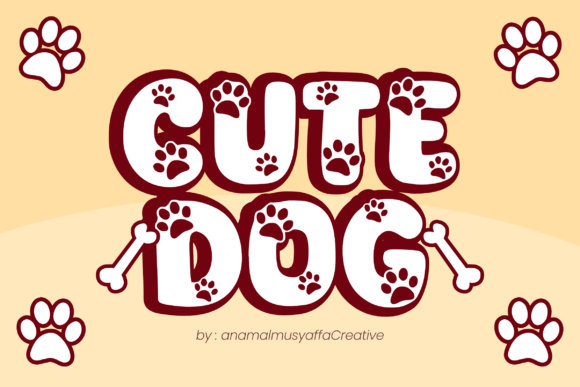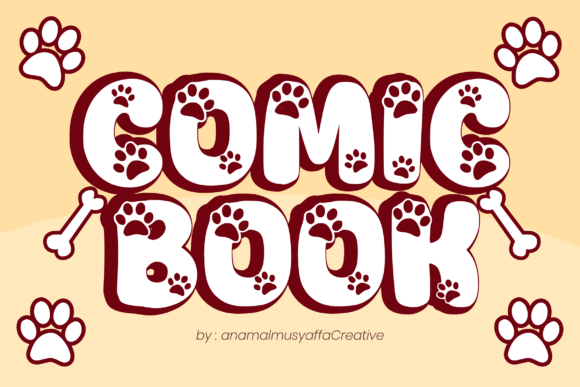
Introduction to Mycats Regular Font Font
Fonts play a crucial role in design, and the Mycats Regular Font font is a typeface that brings both character and versatility to any project. Whether you’re working on a branding project, a website, or a print design, the Mycats Regular Font font offers a unique style that can elevate your work.
| π€ Author | anamalmusyaffaCreative |
Discover the charming allure of βMy Cats,β a whimsically feline-inspired childrenβs decorative typeface.
Each glyph is delightfully plump and adorable, adorned with playful cat paw prints that make each letter uniquely identifiable This font is a dream come true for any crafting project, including but not limited to t-shirt designs, merchandising mug ideas, trendy tote bags, or even spirited animations and comic titles.
Key Features of Mycats Regular Font Font
Why Choose Mycats Regular Font Font?
The Mycats Regular Font font is more than just a typeface β it’s a design tool that helps you communicate your message with style and clarity. Its unique character set and versatile design make it suitable for a wide range of applications, from elegant invitations to bold headlines.
With its carefully crafted letterforms and balanced proportions, the Mycats Regular Font font ensures readability and visual appeal across all mediums.
What makes Mycats Regular Font font special?
The Mycats Regular Font font stands out with its unique design, exceptional readability, and versatility across various design applications.